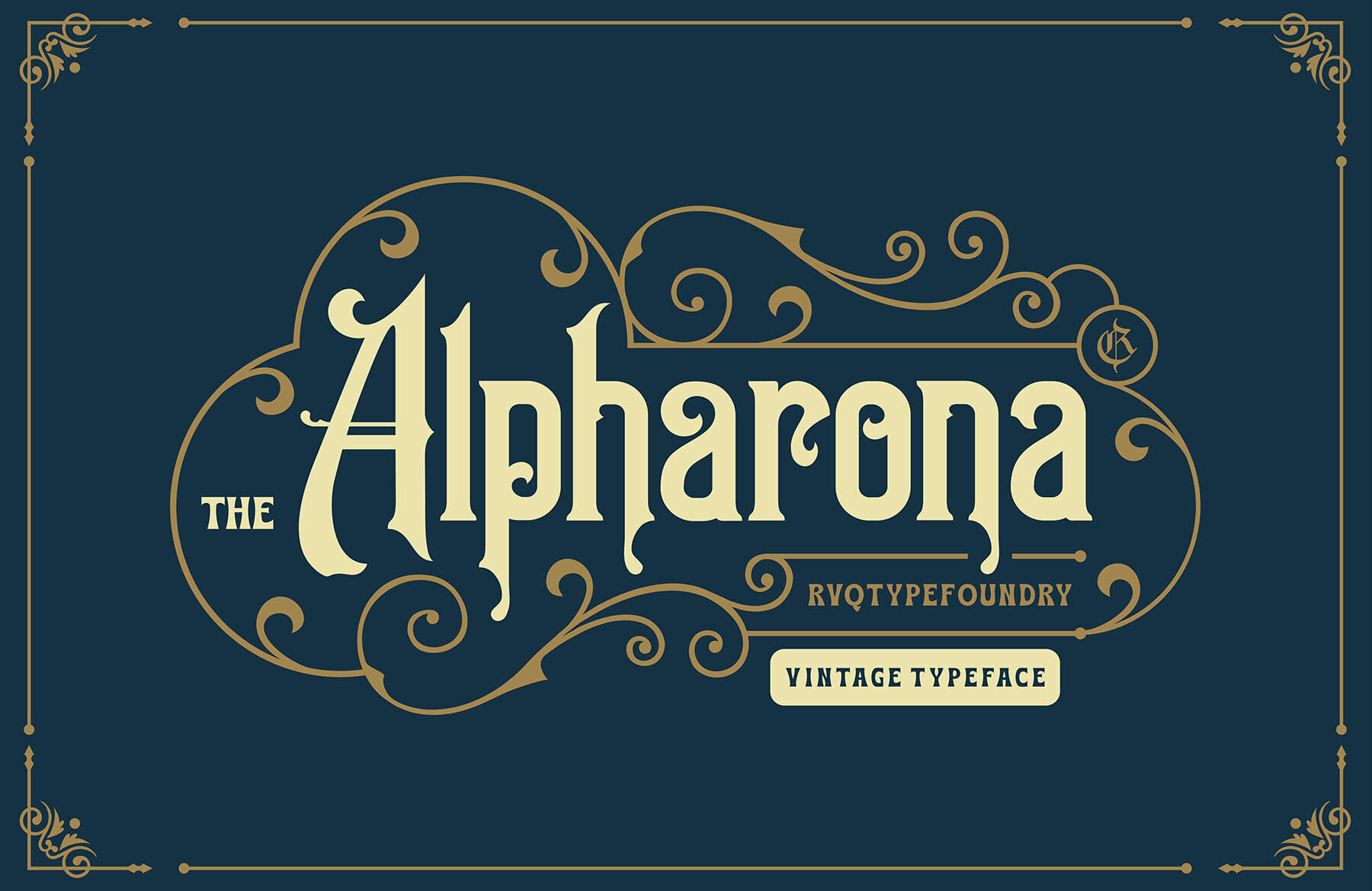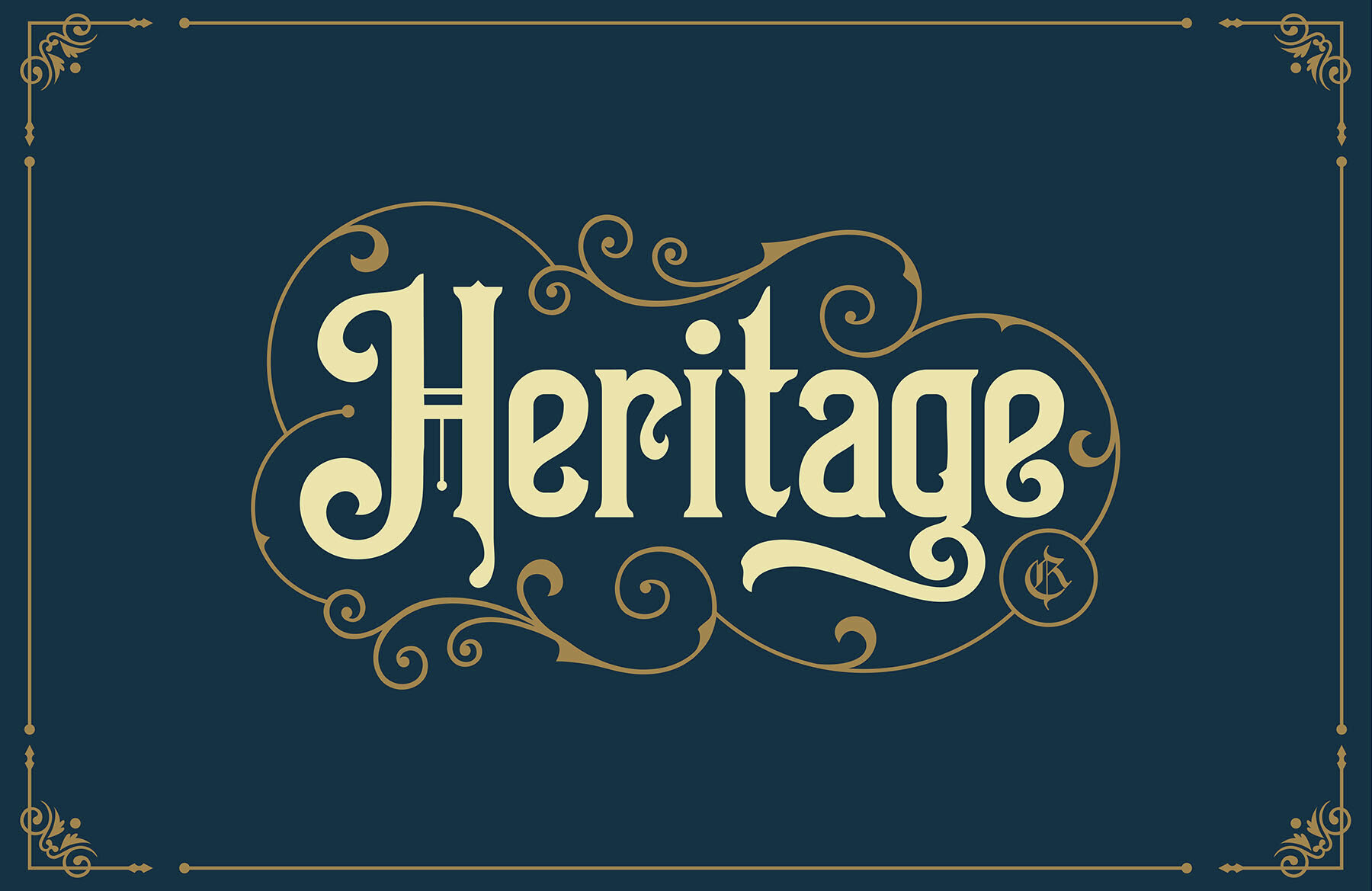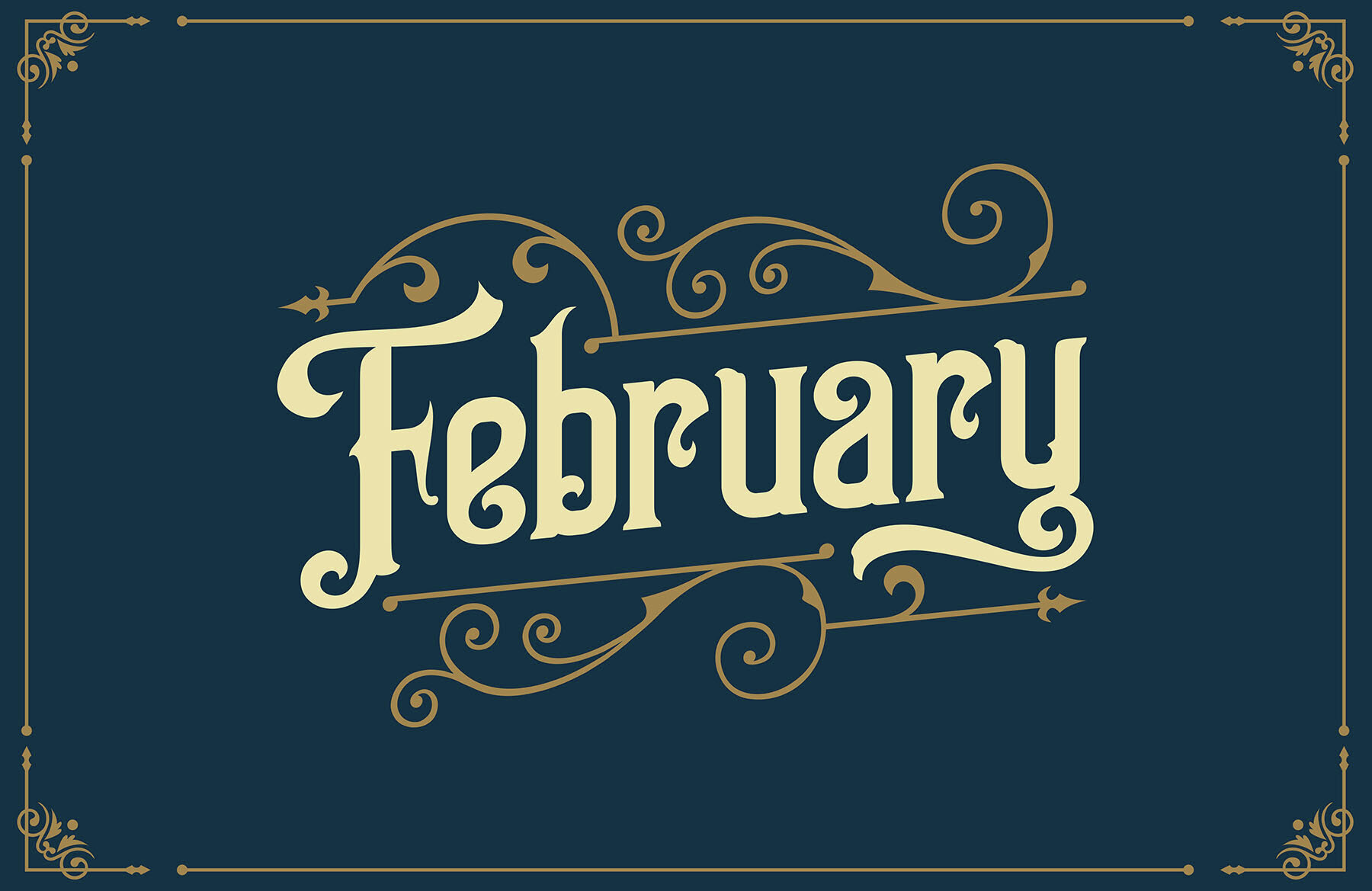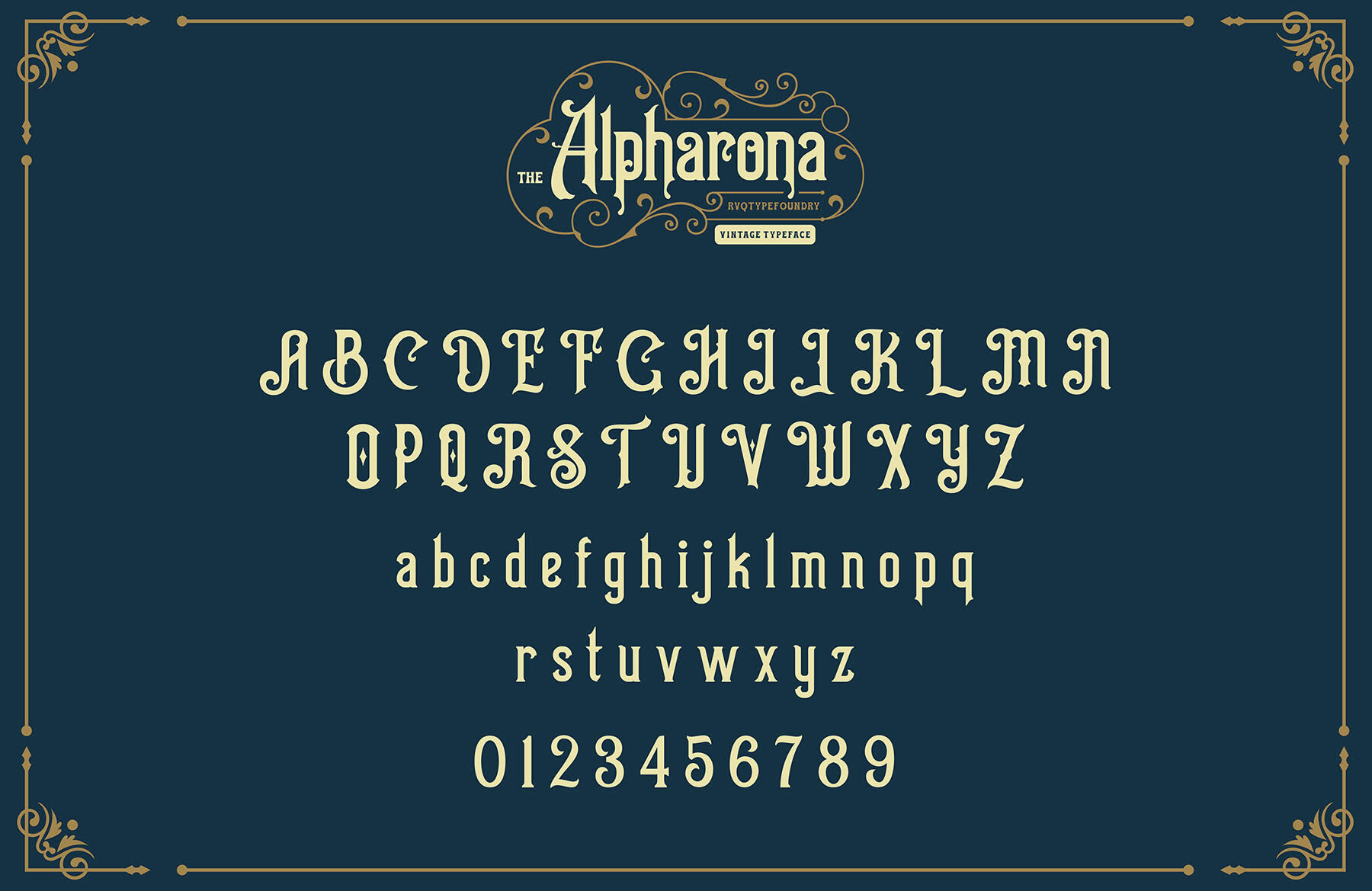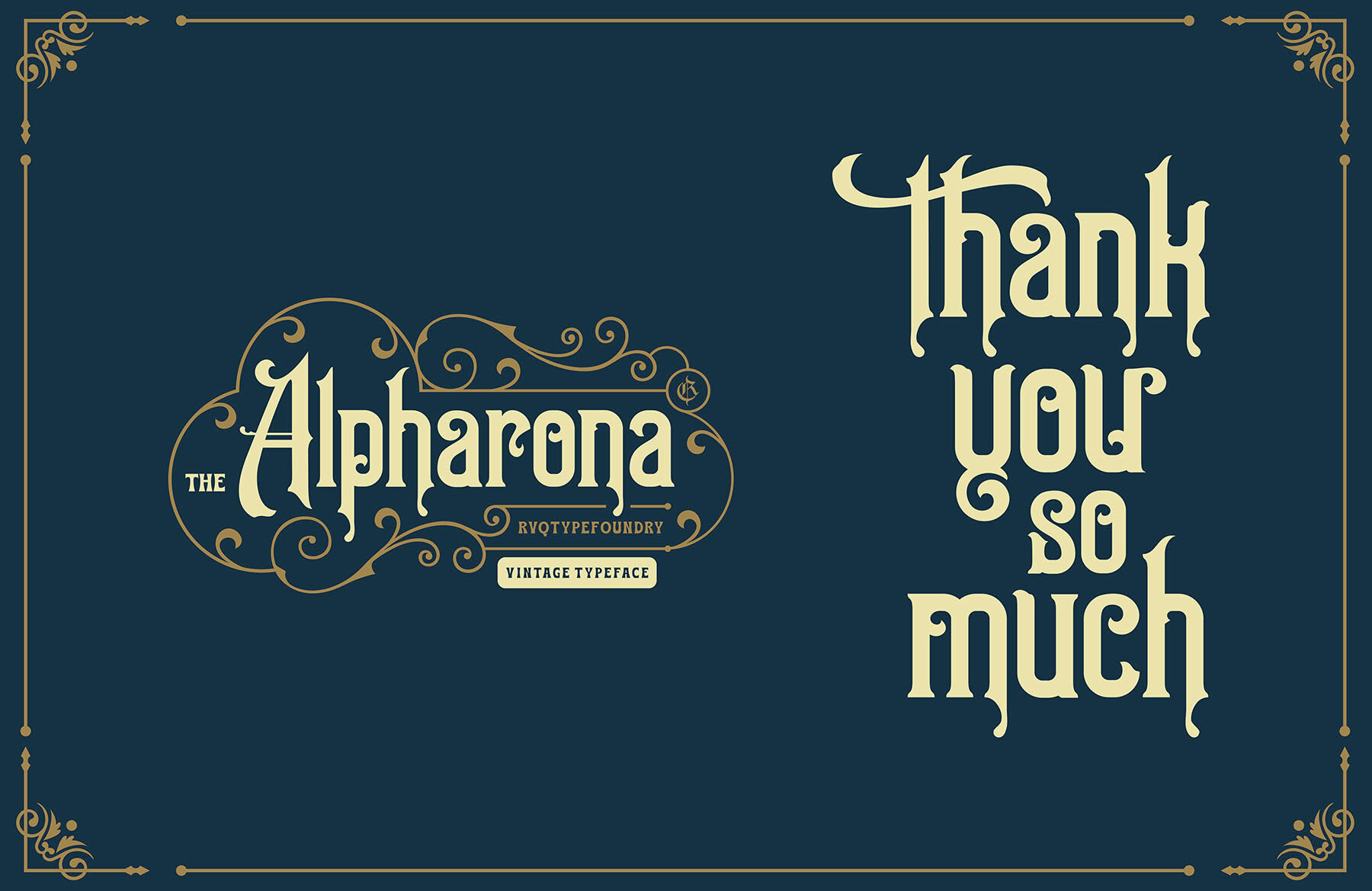
Alpharona Font
Alpharona Regular
Alpharona is a sophisticated typeface crafted with a blend of vintage charm and elegant style. Its unique character set allows designers to achieve a classy aesthetic by combining uppercase and lowercase letters, enhanced with alternative glyphs. The font is versatile, featuring a full range of capital and lowercase letters, multi-lingual support, currency symbols, numerals, punctuation, and additional glyphs, making it a comprehensive tool for any design project.
Key features of the Alpharona typeface include an A-Z character set, numerals, and standard OpenType punctuation. It also supports accents for multilingual use and includes stylistic alternates to enhance your designs. As a bonus, this typeface package comes with vector elements, adding further value to creative projects. Ideal for various design applications, Alpharona can complement a wide range of creative products and concepts with its timeless appeal.